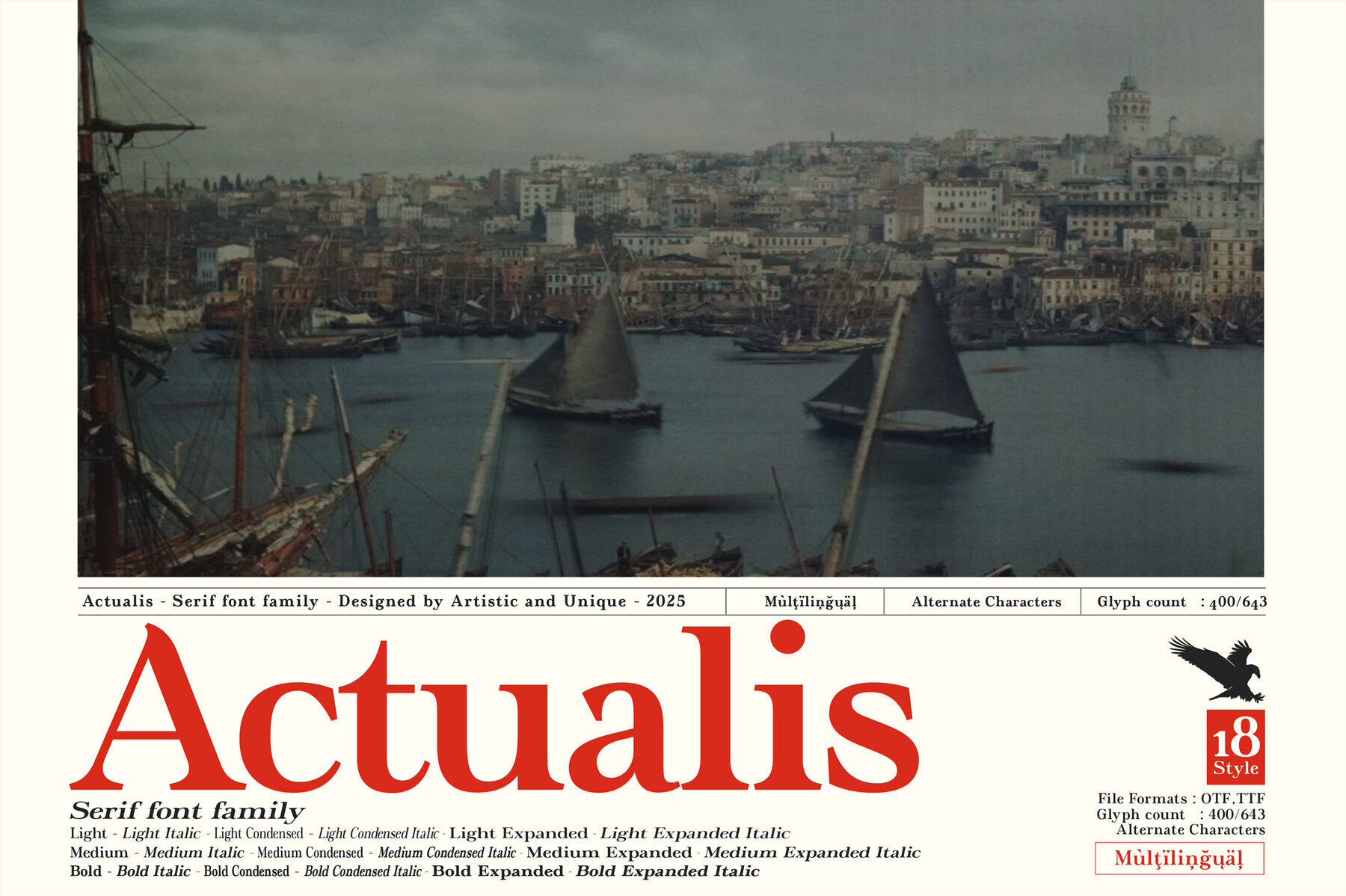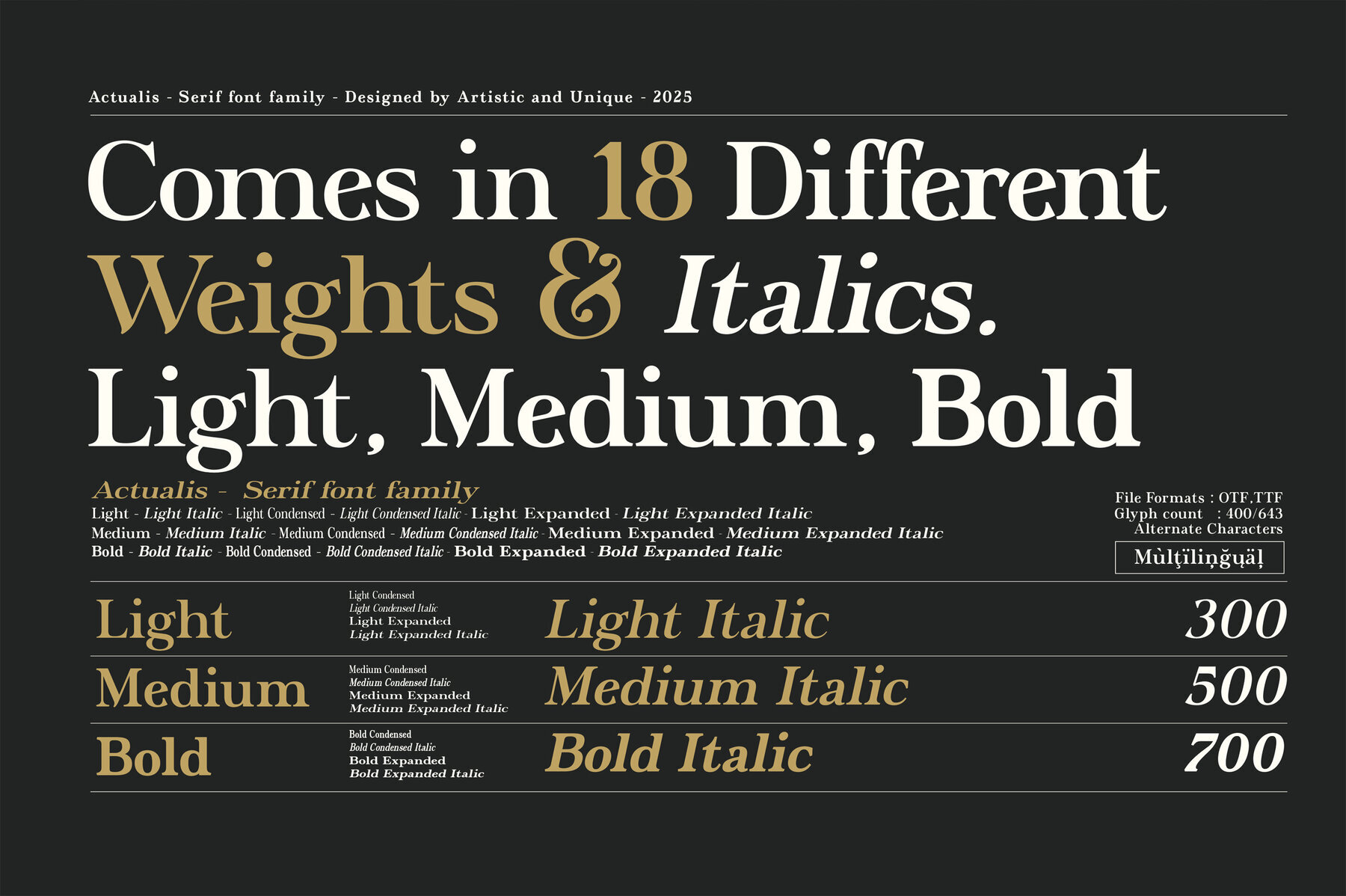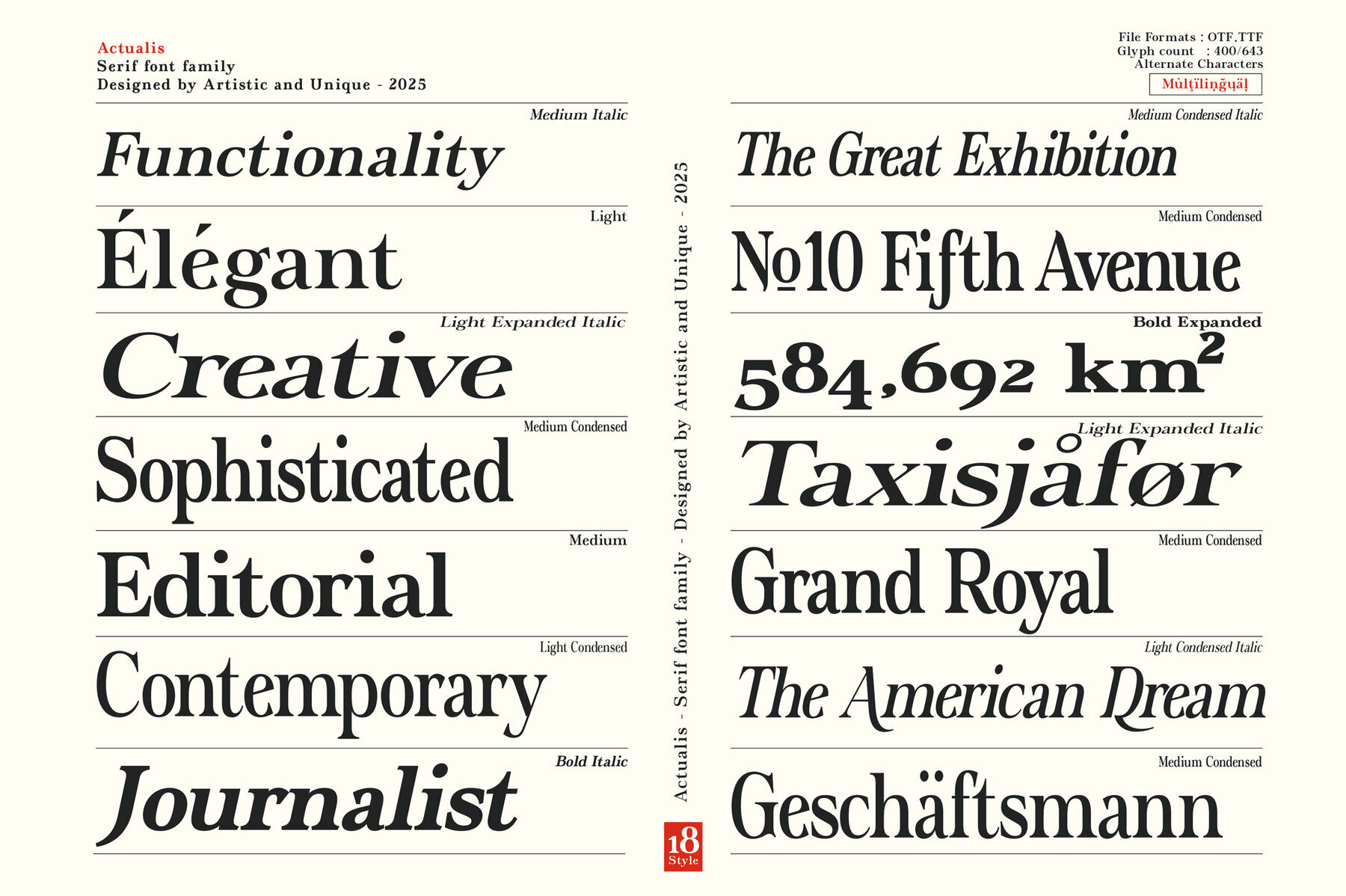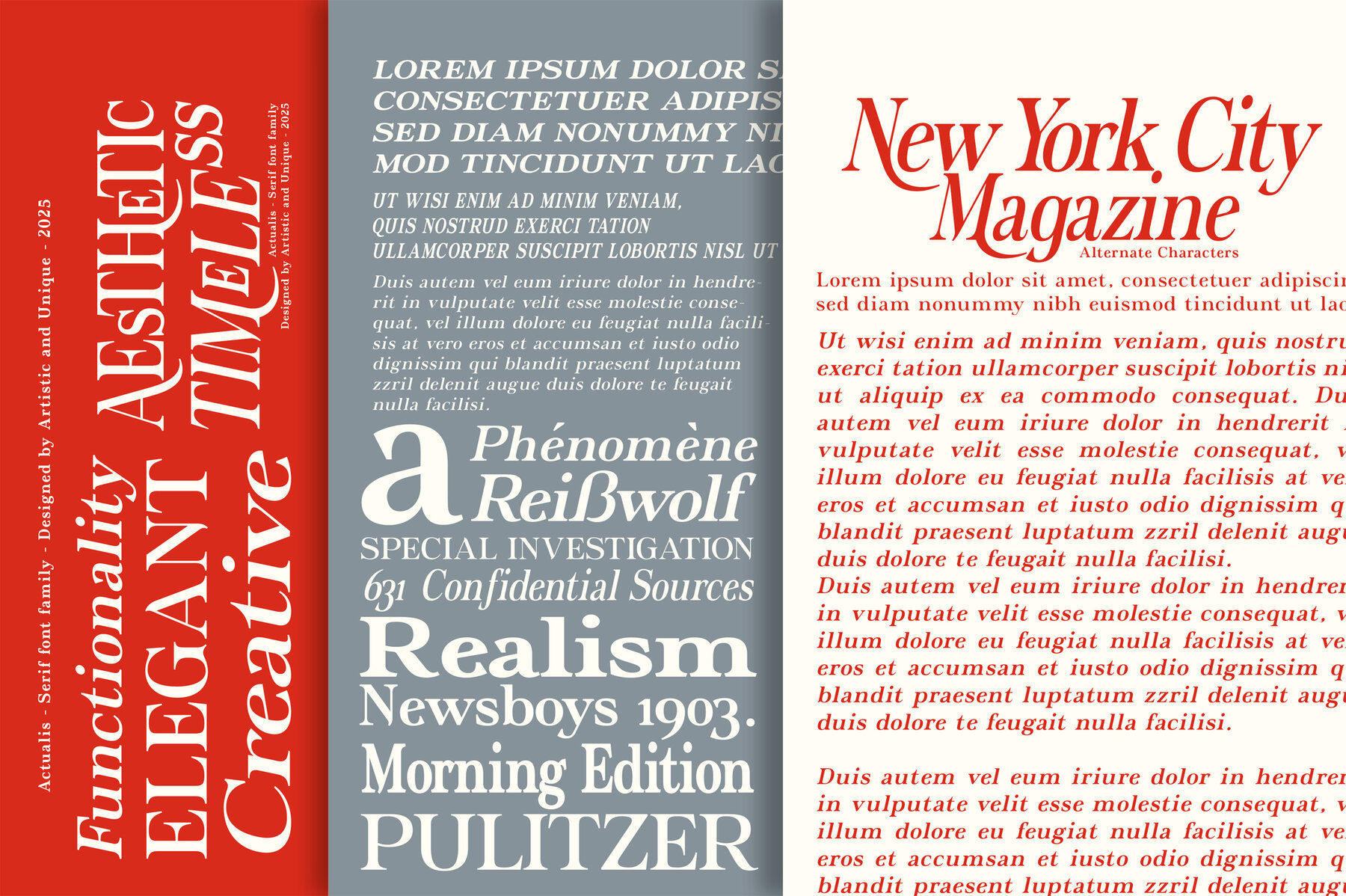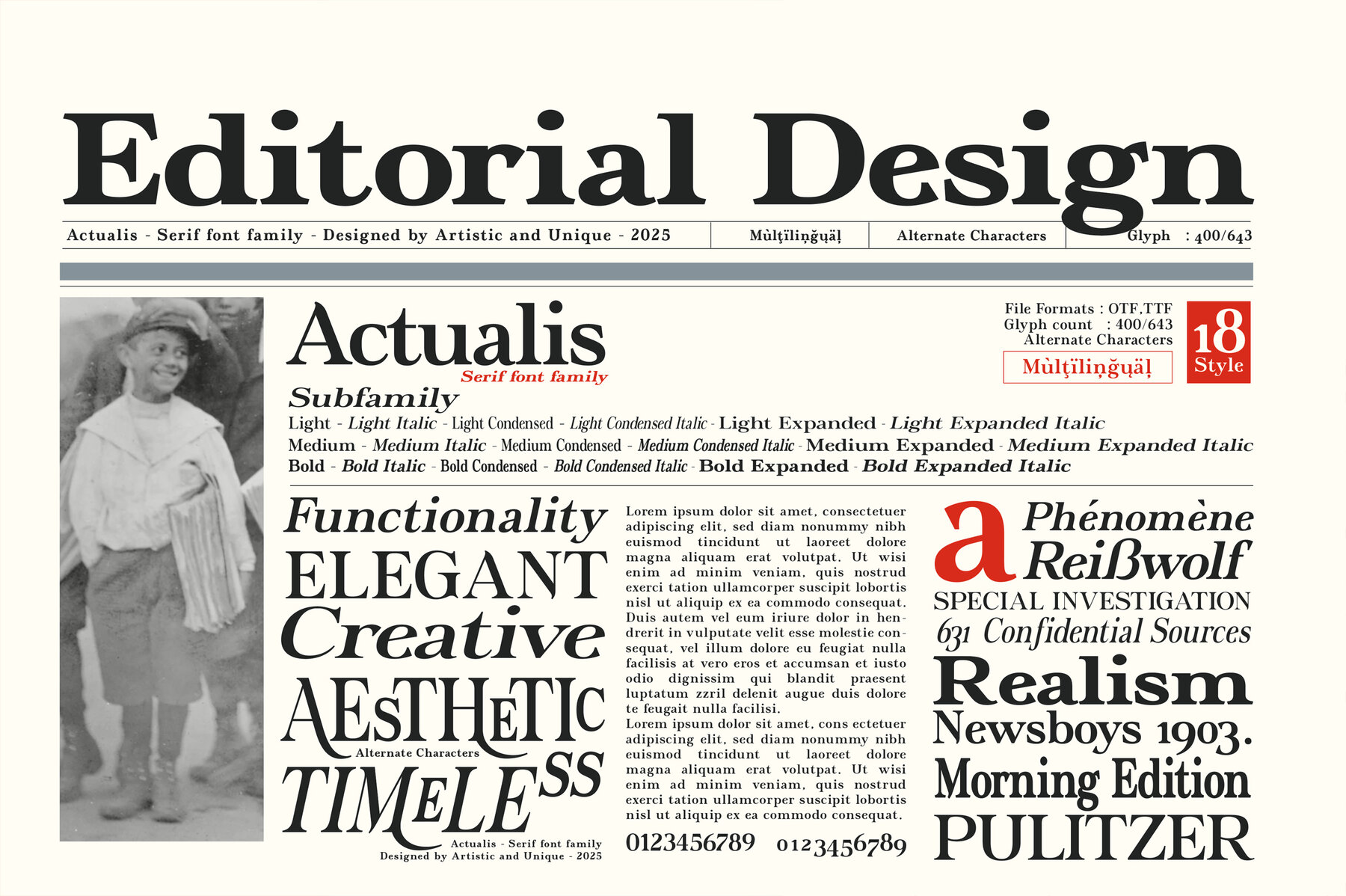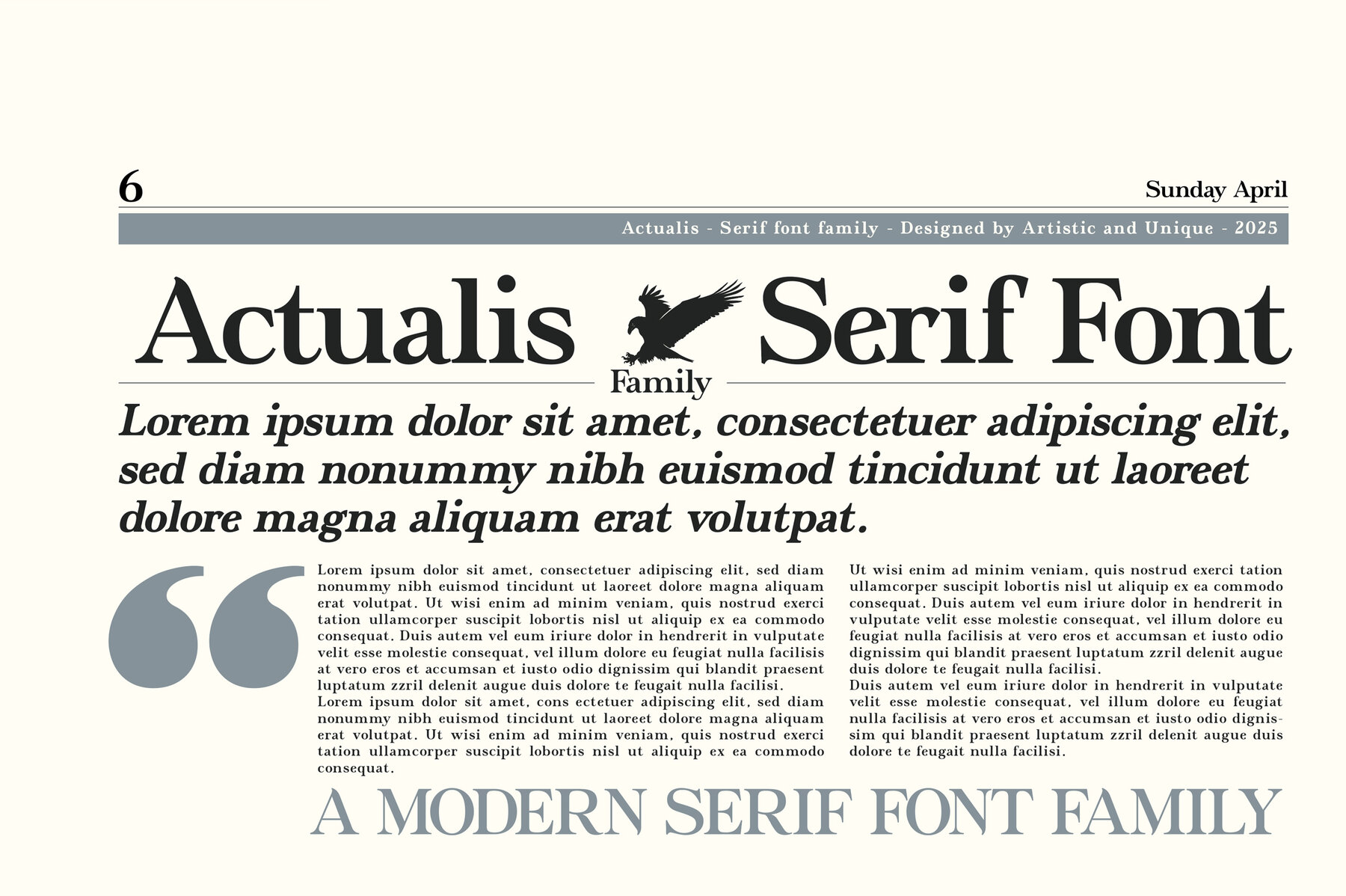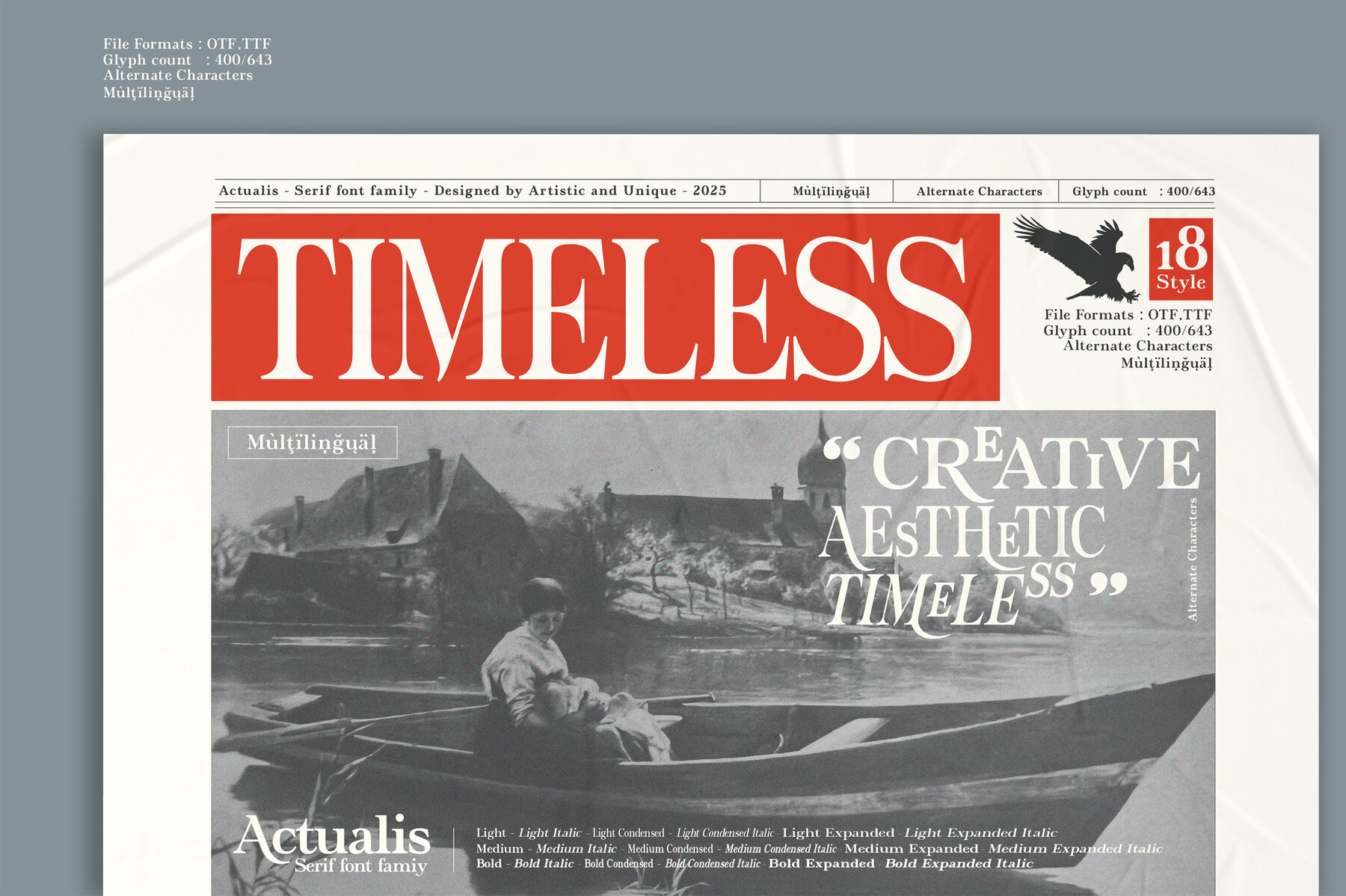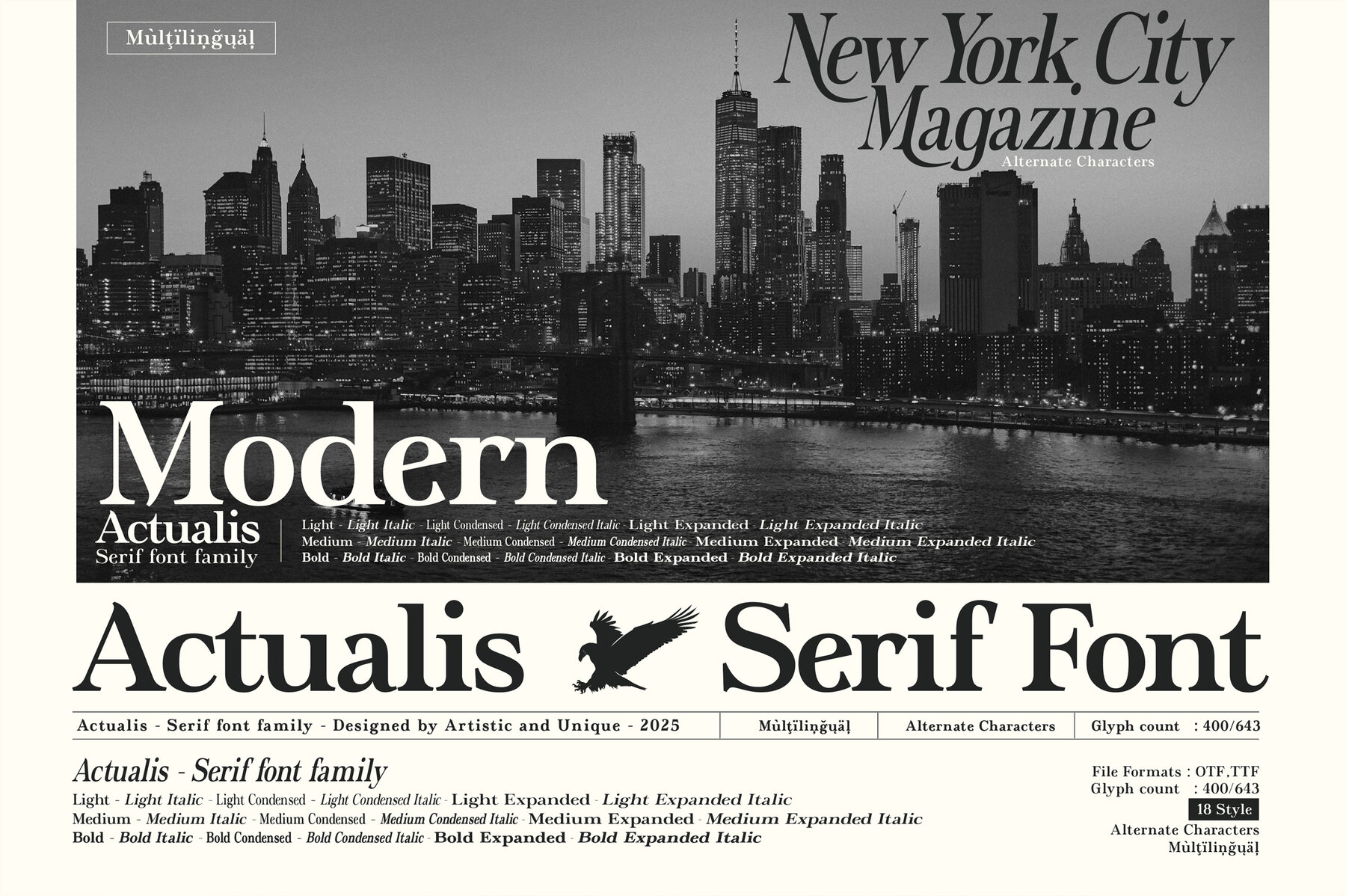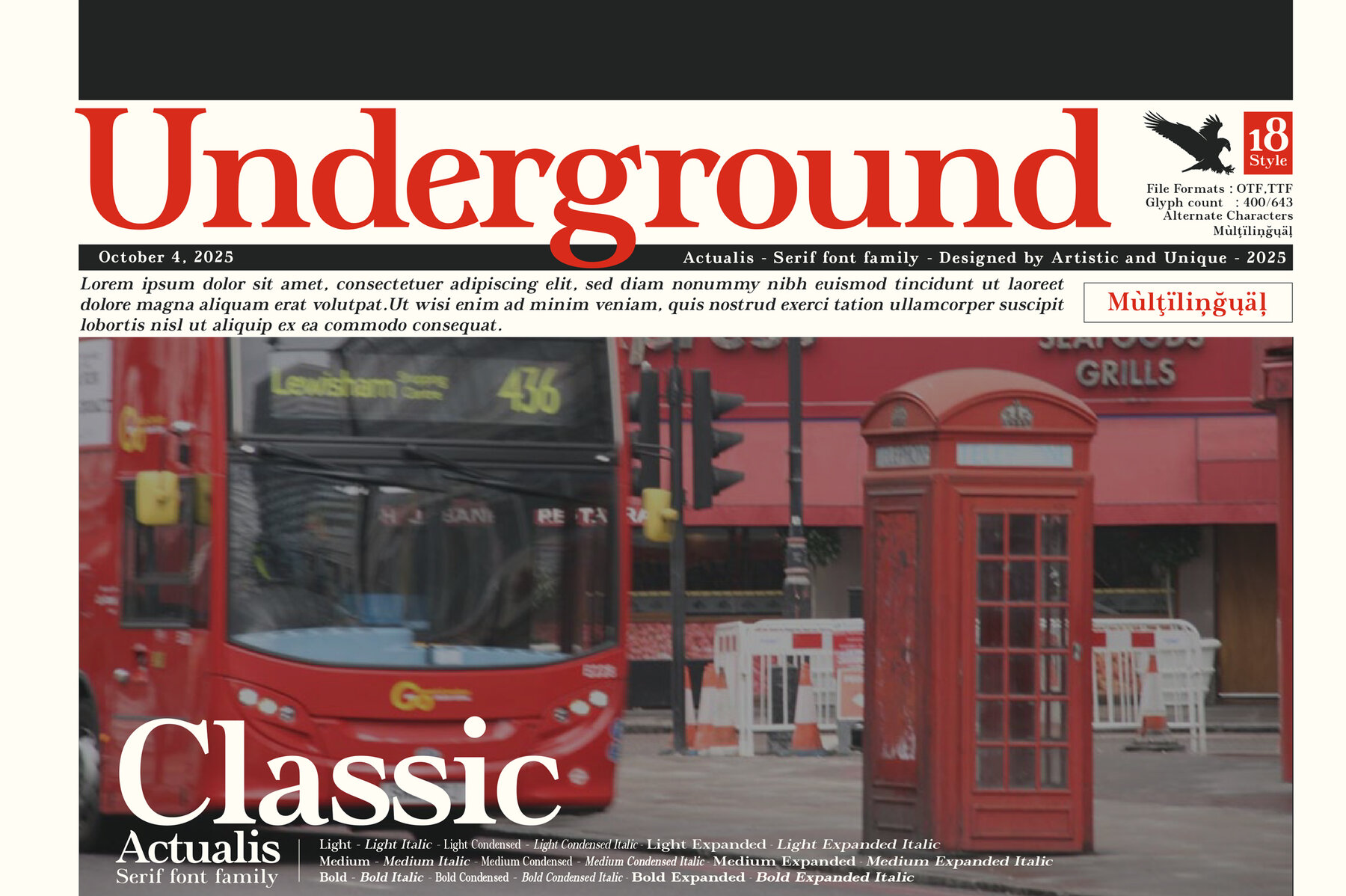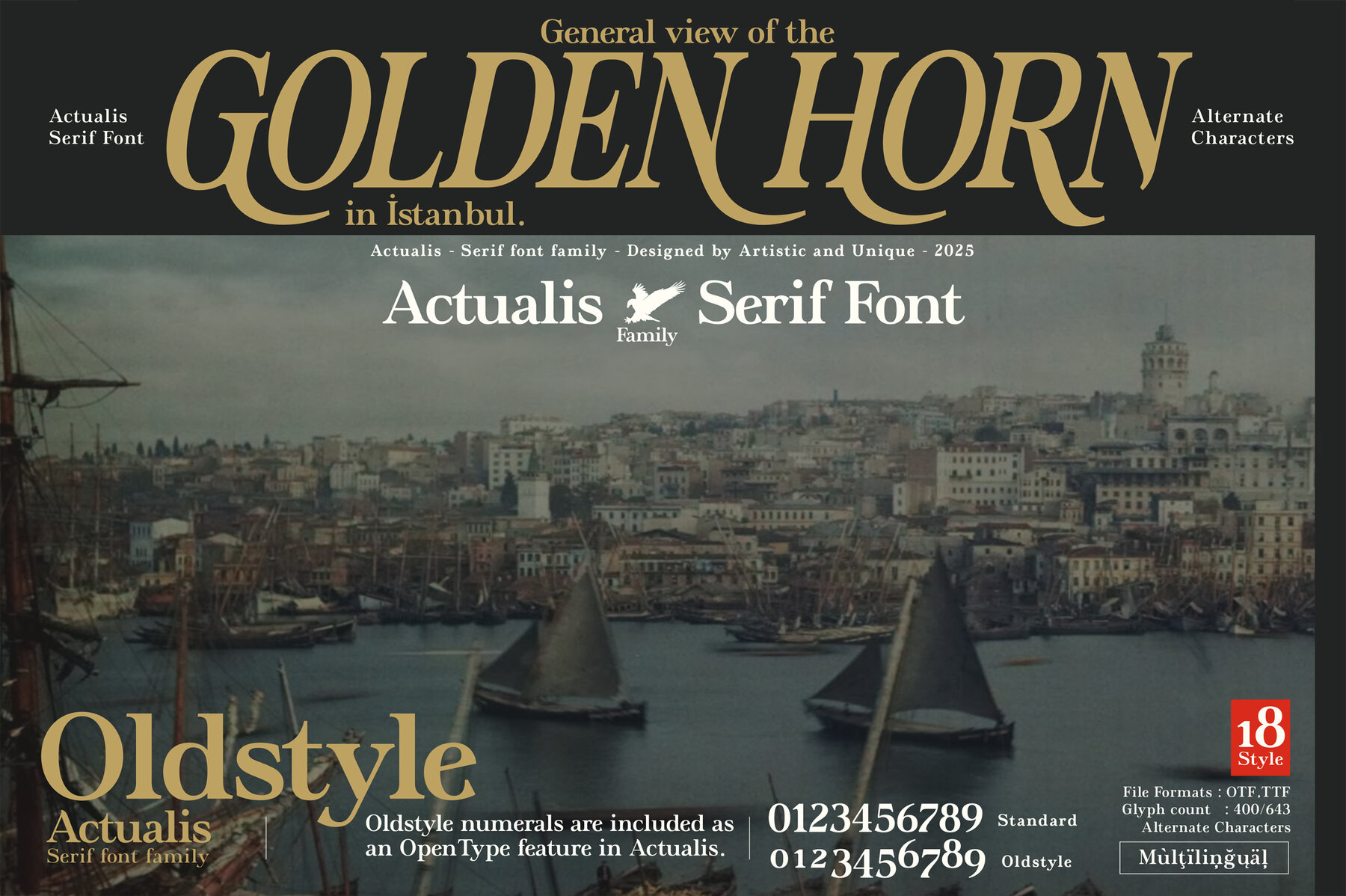
Actualis Font
Actualis Serif Font Family bridges classic and modern with its eighteen styles, offering versatility in design. While echoing the refinement of traditional serif fonts, Actualis brings modern nuances suitable for today’s creative demands. Offering comprehensive multilingual support, this font family enriches your typographic repertoire. Ideal for editorial work, branding, and web design, Actualis provides designers the flexibility to craft elegant and impressive compositions. Its sophisticated character is ideal for projects requiring a touch of elegance.Actualis: A Versatile Serif Font Family